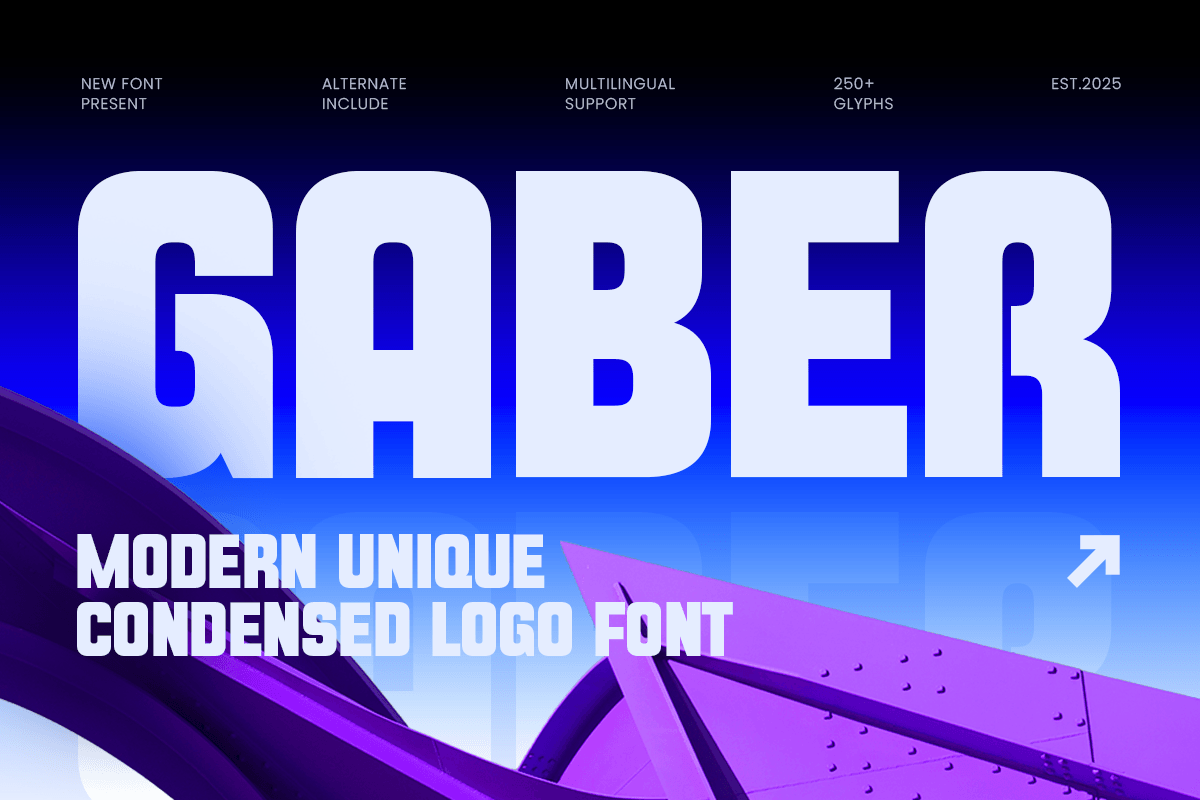
Gaber
-Modern Condensed Font
Gaber
Gaber - Modern Condensed Font
GABER is a modern condensed font designed with a sleek and powerful appearance. Featuring tall proportions, clean lines, and a balanced structure, GABER delivers a contemporary visual style that feels professional, confident, and highly versatile for modern design projects.
Perfect for logos, brand identity, posters, packaging, headlines, signage, UI design, and social media graphics, GABER helps create strong visual communication with its compact letterforms and excellent readability. Its condensed style makes it ideal for projects that require a bold presence while maintaining a clean and modern aesthetic.
Built for designers who need a reliable display typeface, GABER works beautifully across digital and print applications. From corporate branding to creative campaigns, this modern condensed font adds a refined and impactful character to every layout.
GABER – Modern Condensed Font Features
• Clean modern condensed letterforms
• Strong display style with professional character
• Ideal for logos, branding, posters, and headlines
• Perfect for packaging, signage, and editorial layouts
• Great for digital and print projects
• OpenType features for creative flexibility
Create a powerful visual identity with GABER – a modern condensed font crafted for bold and timeless designs. ✨